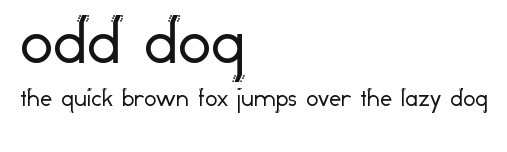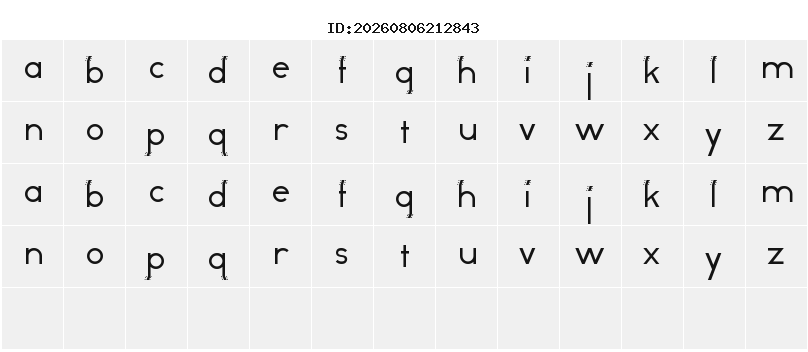
• Font Name: Odd Dog
• Full Font Name: Odd Dog Regular
About Odd Dog.ttf
Odd Dog.ttf is a modern, elegant sans-serif font designed for ultimate readability and visual harmony. Perfect for branding, headlines, web design, and print materials.